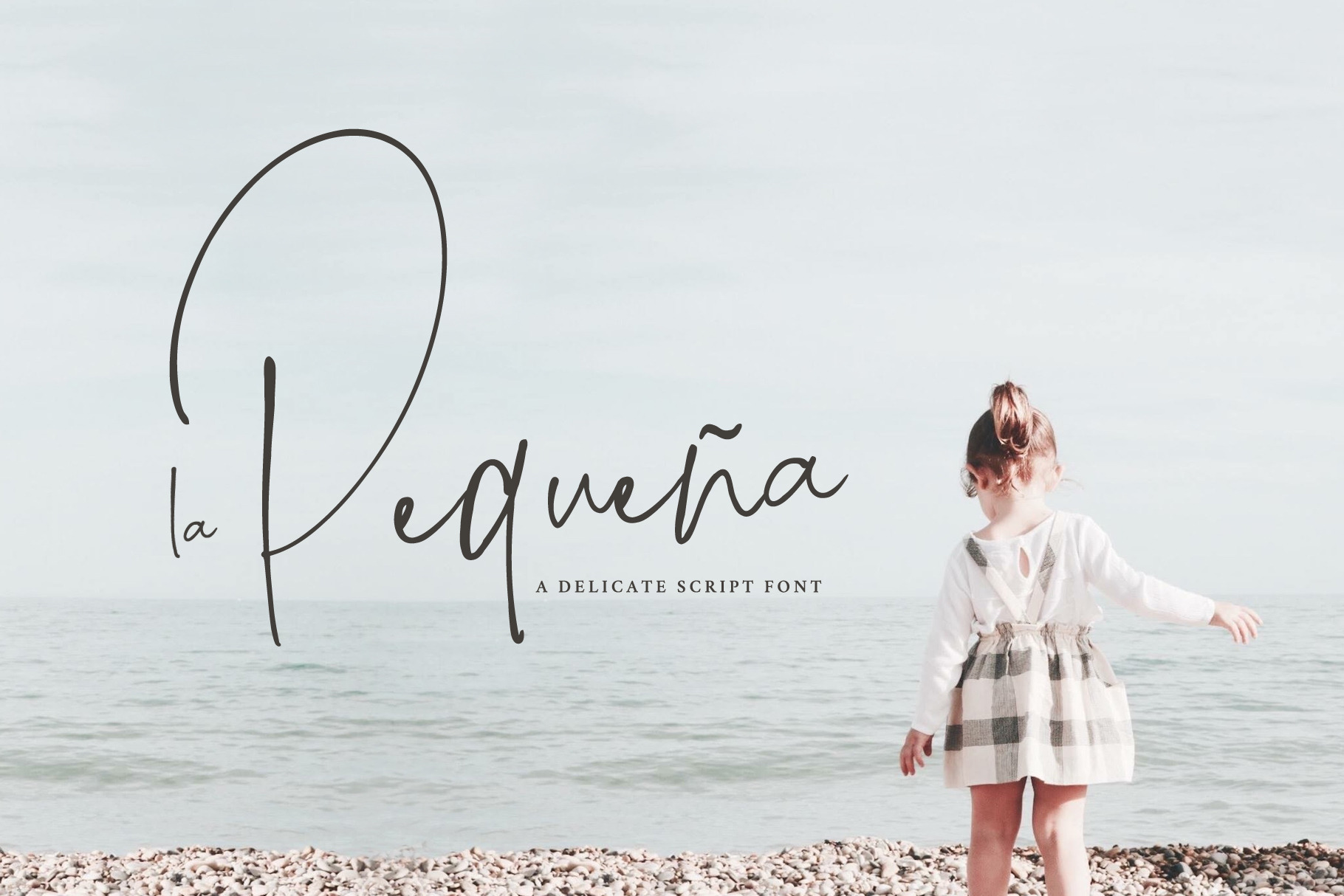
Signature Font La Pequeña
A modern signature font font with a delicate style, looks great in big texts and as a display font.
Uppercase and lowercase characters, numbers and punctuation Language support Includes:
- Uppercase, lowecase, numbers and puctuation
- Language support